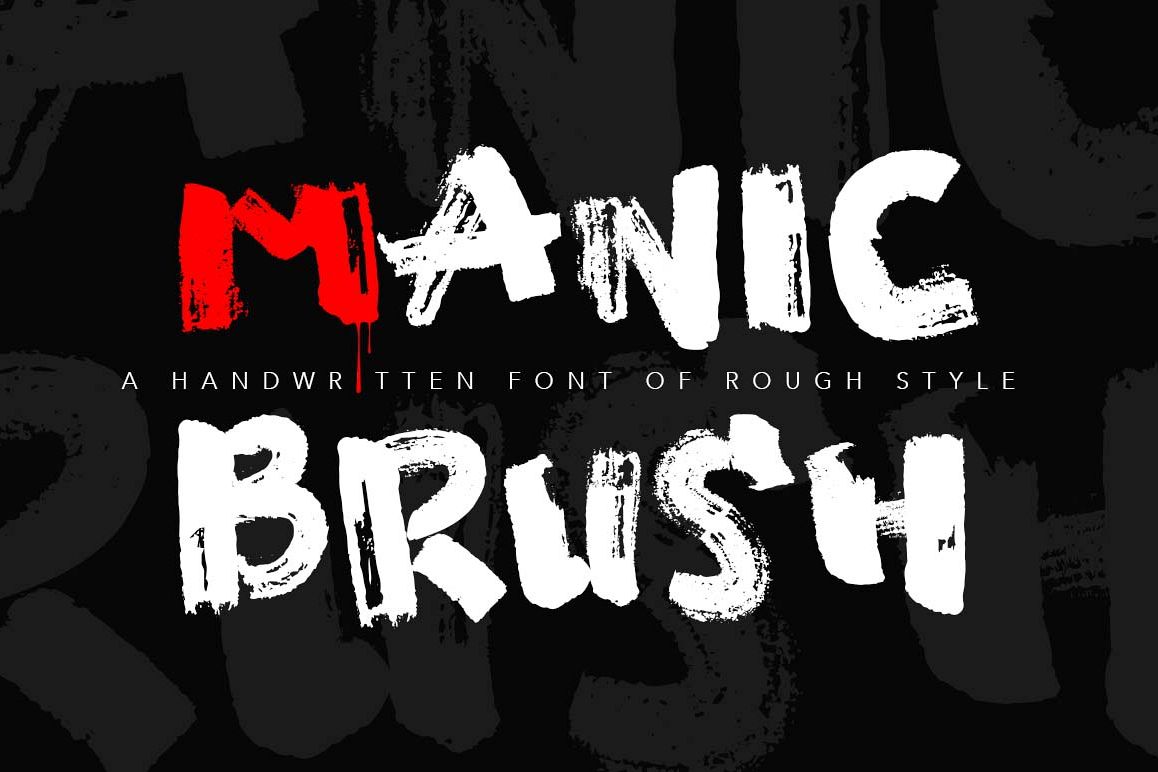
Manic Brush Script Font
Manic Brush Script is a brush style font, bold style, outstanding personality, strong momentum, suitable for advertising headlines, including Photoshop and illustrator shape,  Some Ligature glyph, let you create a variety of combinations and deformation